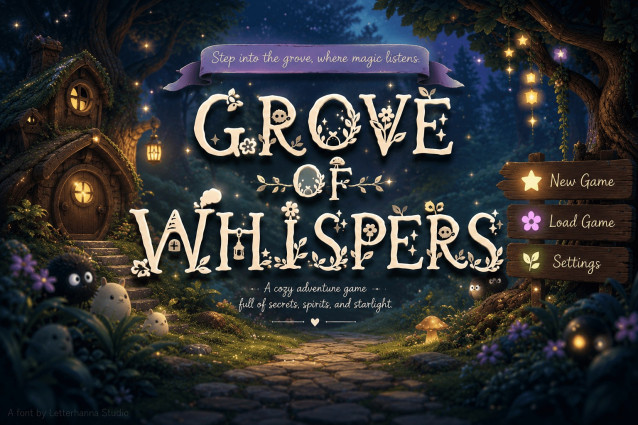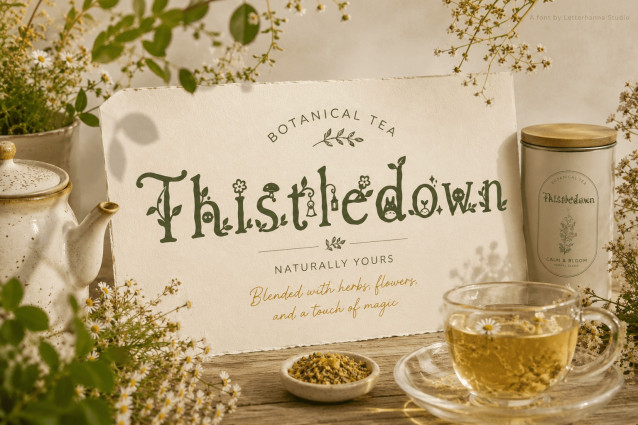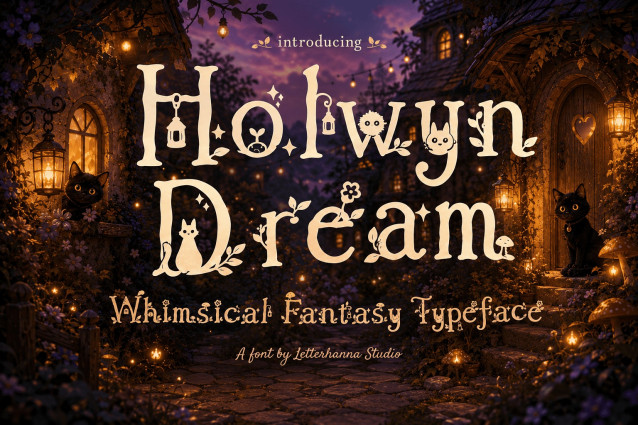
Holwyn Dream Font
If you have ever wished your designs could feel like they stepped out of a storybook, a magical font like Holwyn Dream might be exactly what you have been searching for. There is something special about typography that carries emotion before a single word is even read, and that is precisely what this whimsical typeface delivers. With its soft, hand-lettered strokes and delicate illustrated details, Holwyn Dream turns ordinary text into a small piece of fantasy letter art.
The Shape, Style, and Vibe of Holwyn Dream
At first glance, Holwyn Dream looks like it was written by candlelight in an old cottage tucked deep in the woods. The letterforms are slim and slightly imperfect, with gentle curves instead of sharp, mechanical lines. This hand-drawn quality gives the font a warm, personal feeling, as though every letter was lettered with care rather than generated by a machine.